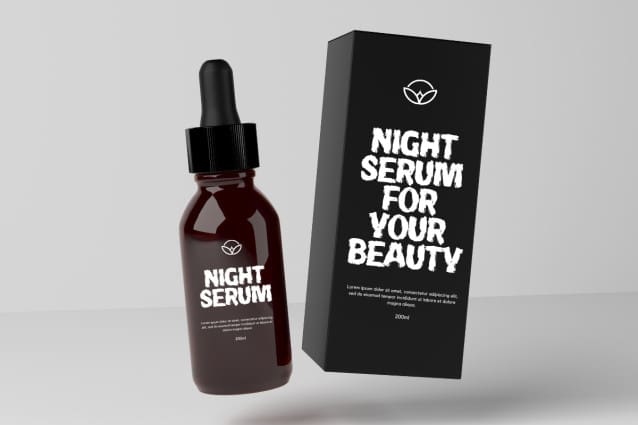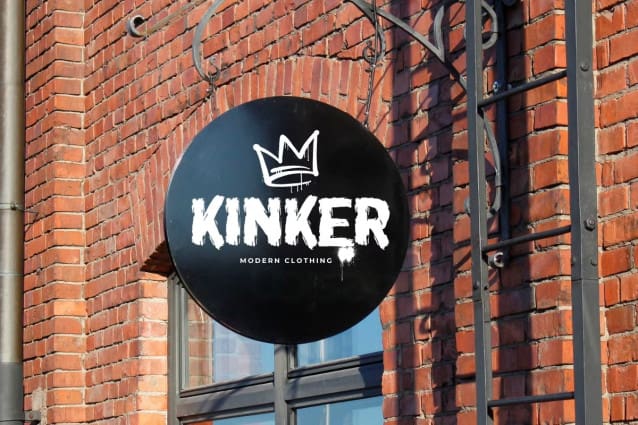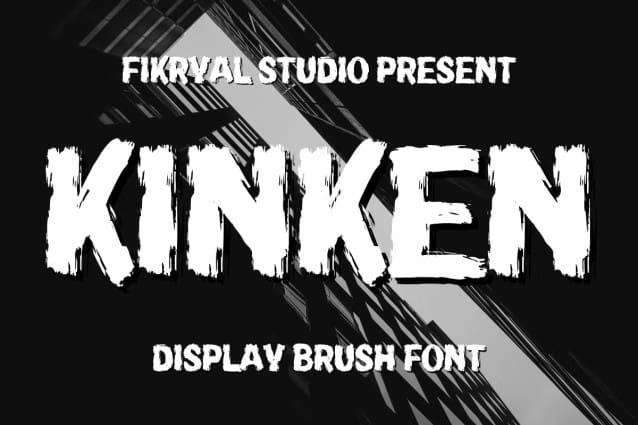
Kinken Brush Font
Kinken Brush Font is a naturally crafted all-caps brush font that combines boldness with organic authenticity. Each stroke exudes energy, making it the perfect choice for branding, posters, packaging, and creative designs that need a natural touch. Whether you’re working on modern or rustic themes, Kinken adapts effortlessly to your vision.